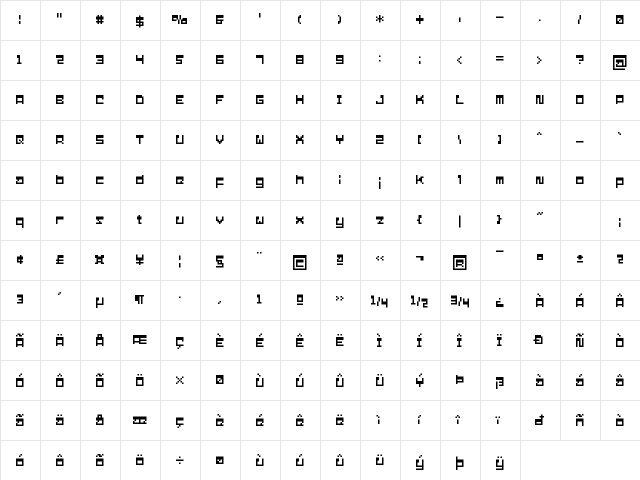
Galactic Regular
Design Context for Galactic Typeface
Galactic is a composed and adaptable typeface that performs quietly and consistently across a wide range of design contexts.